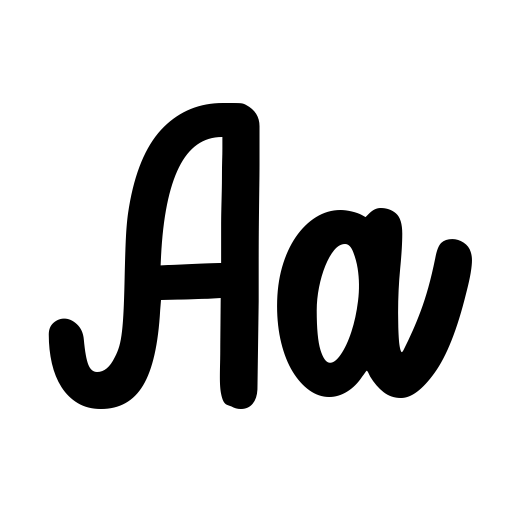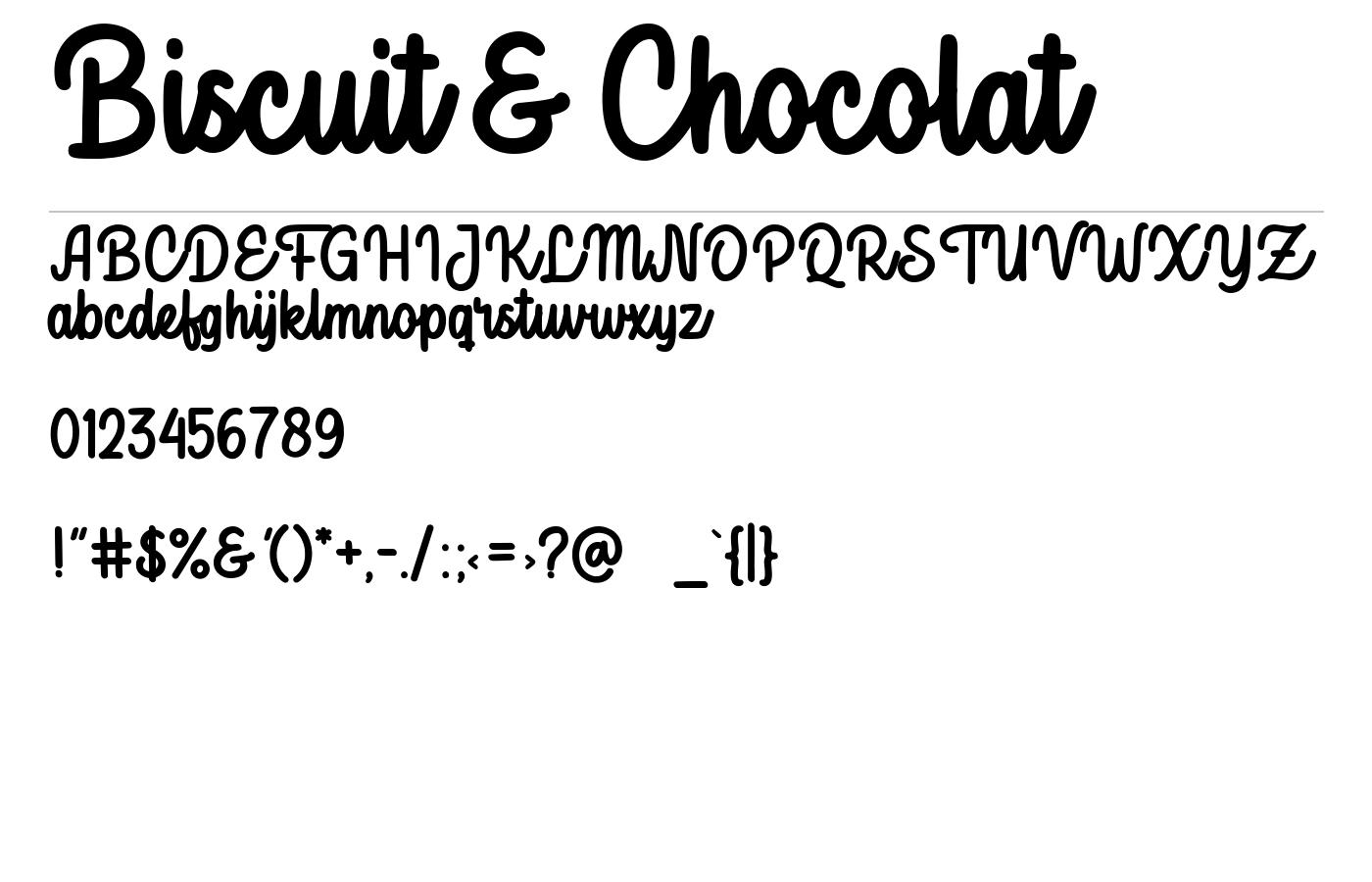
Biscuit & Chocolat is a playful and casual script-style font with rounded, smooth strokes that give it a friendly and inviting feel. Its consistent weight and distinctive letterforms make it ideal for fun, informal branding, packaging, and headlines where a warm and approachable personality is desired. This font works well for designs that want to communicate charm and creativity with a handwritten touch.
Biscuit & Chocolat Font
About Biscuit & Chocolat Font
| Font family | Biscuit & Chocolat Font |
| Designer | Octotype |